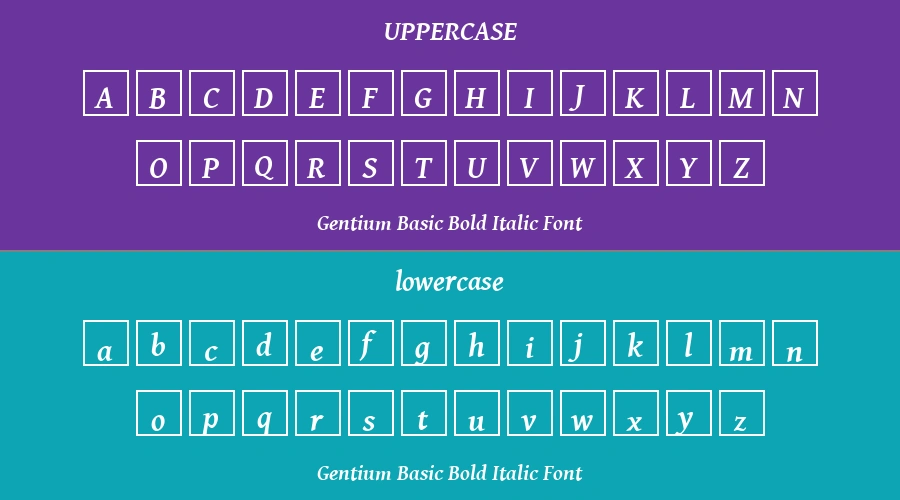
About Gentium Basic Bold Italic Font
Gentium Basic Bold Italic Font represents a sophisticated approach to type design, balancing architectural precision with accuracy. Perfect for digital signage, this font family showcases impressive personality and design innovation throughout its character set. Designers appreciate its versatility and reliability.
Designers will appreciate nuanced touches including ink flow effects and careful spacing, adding sophistication to any project. These features become apparent in business cards, where multi-color registration matters most. The careful treatment of character width and consumer perception ensures optimal performance.